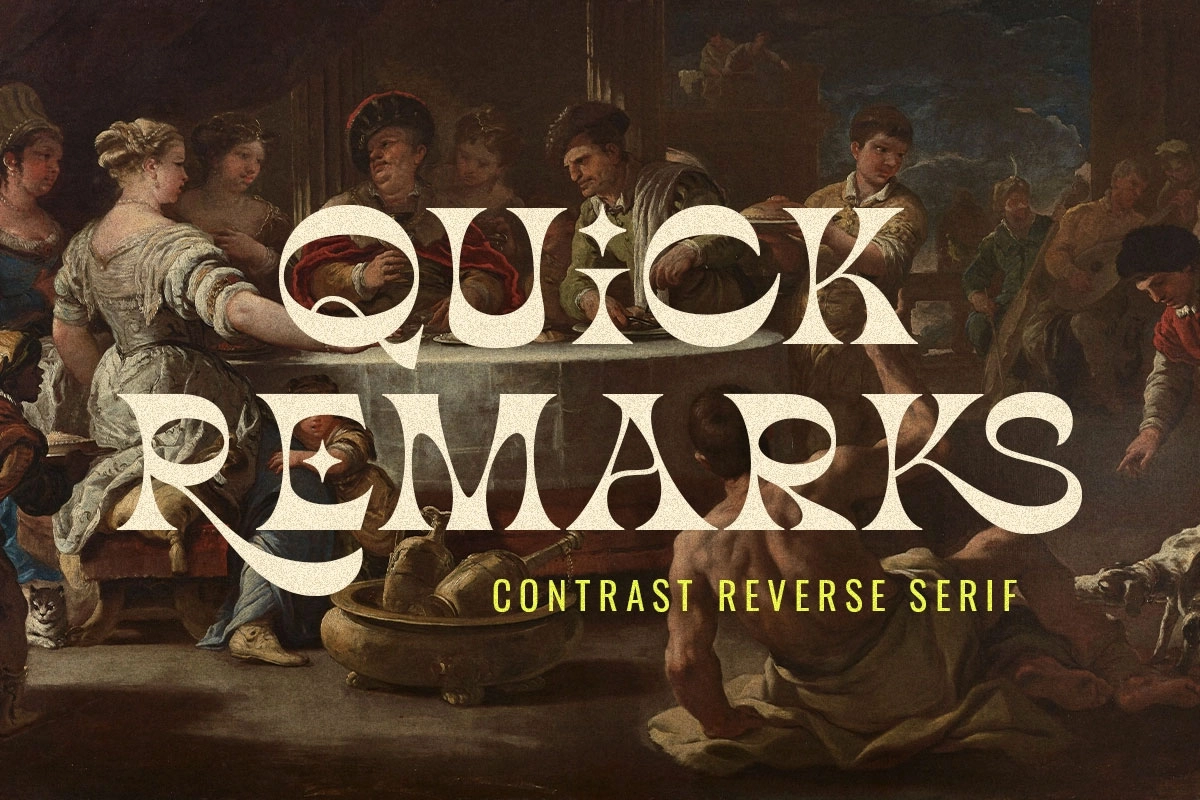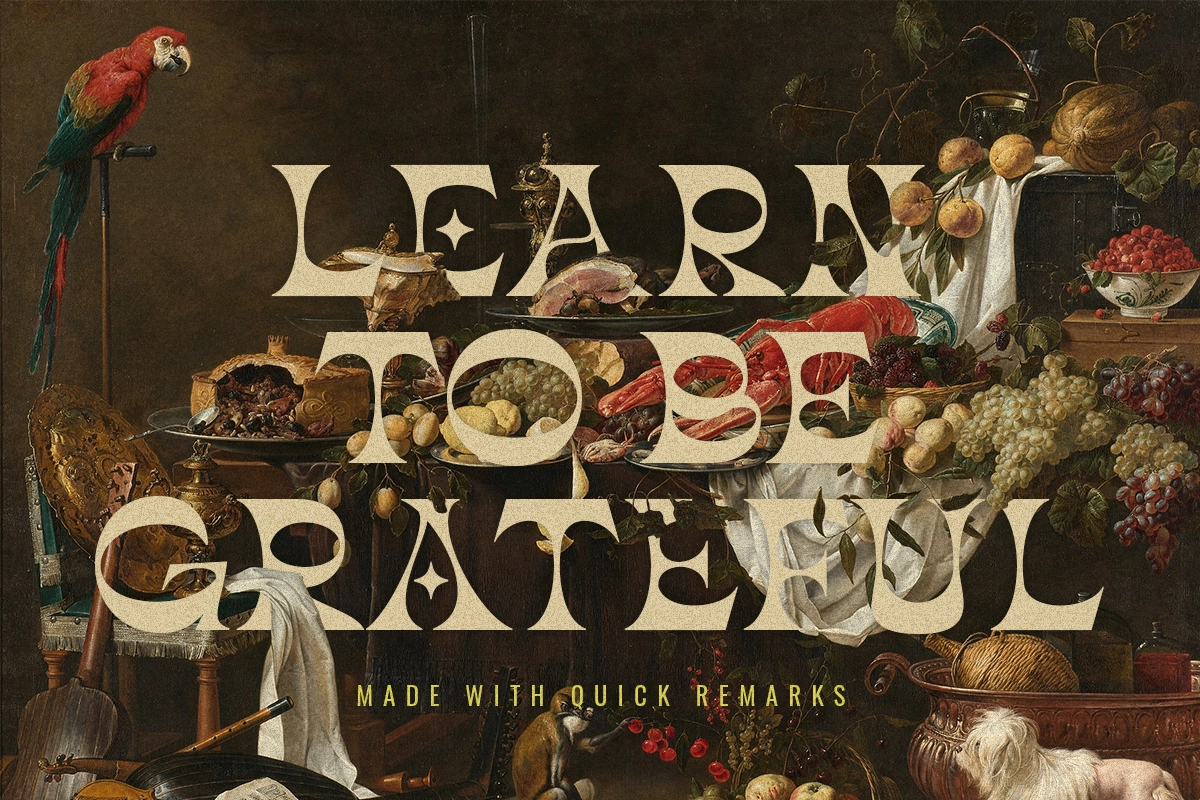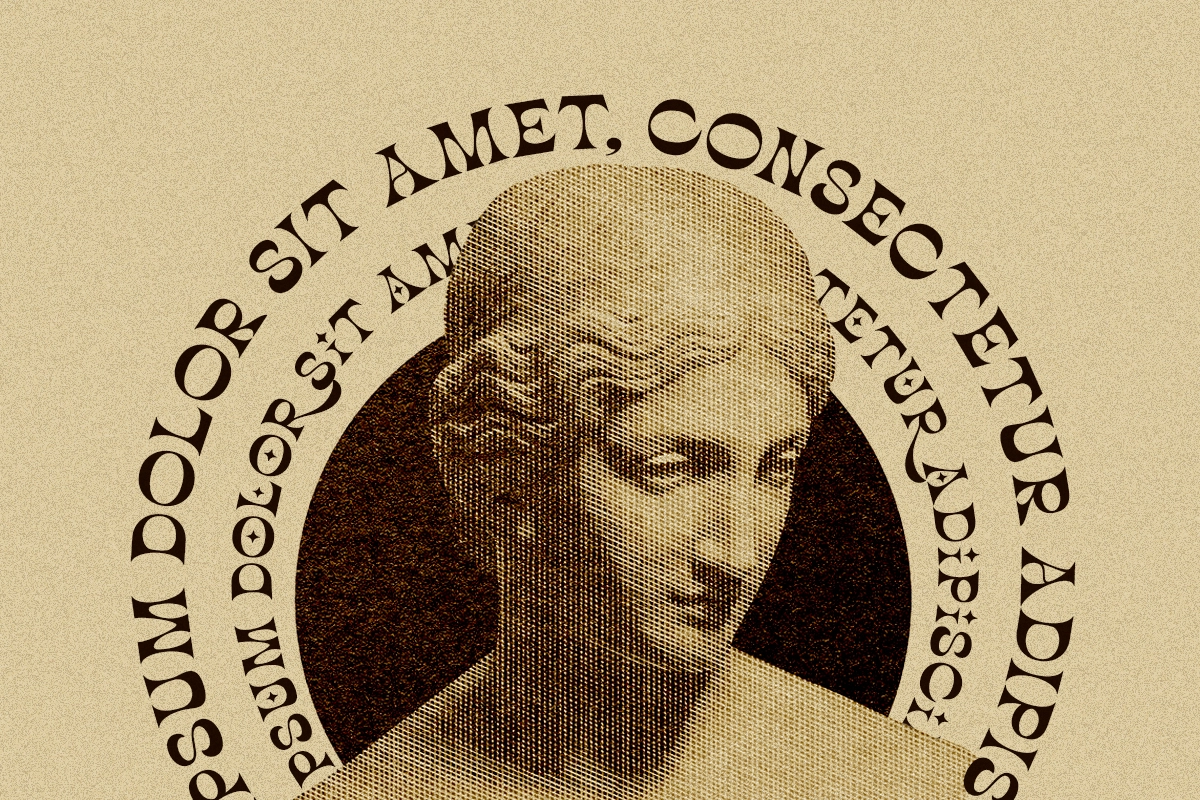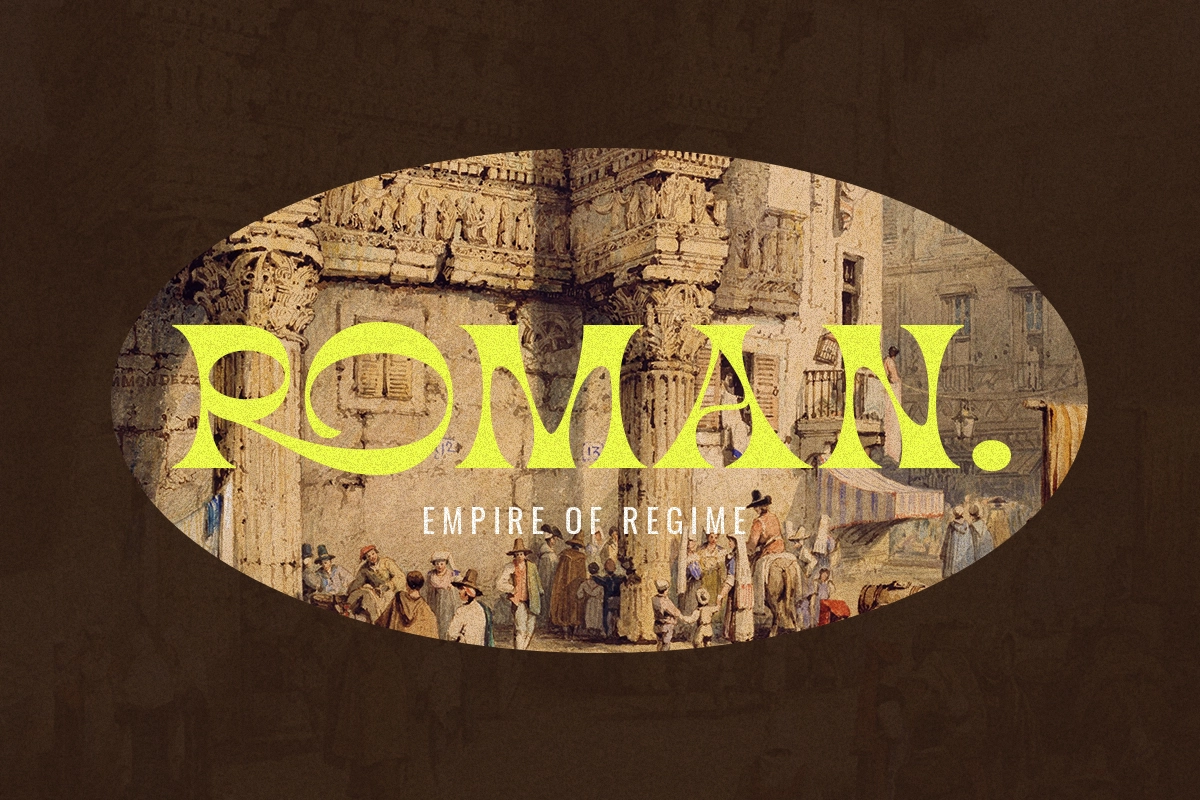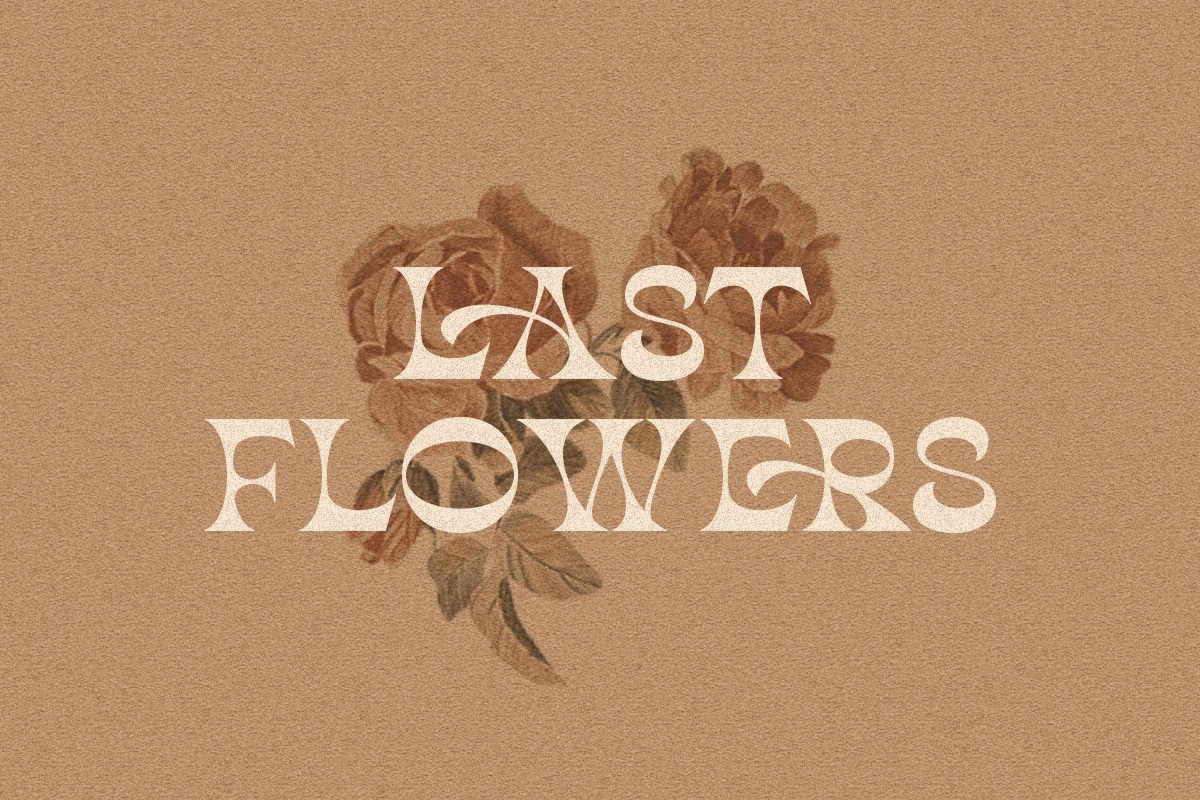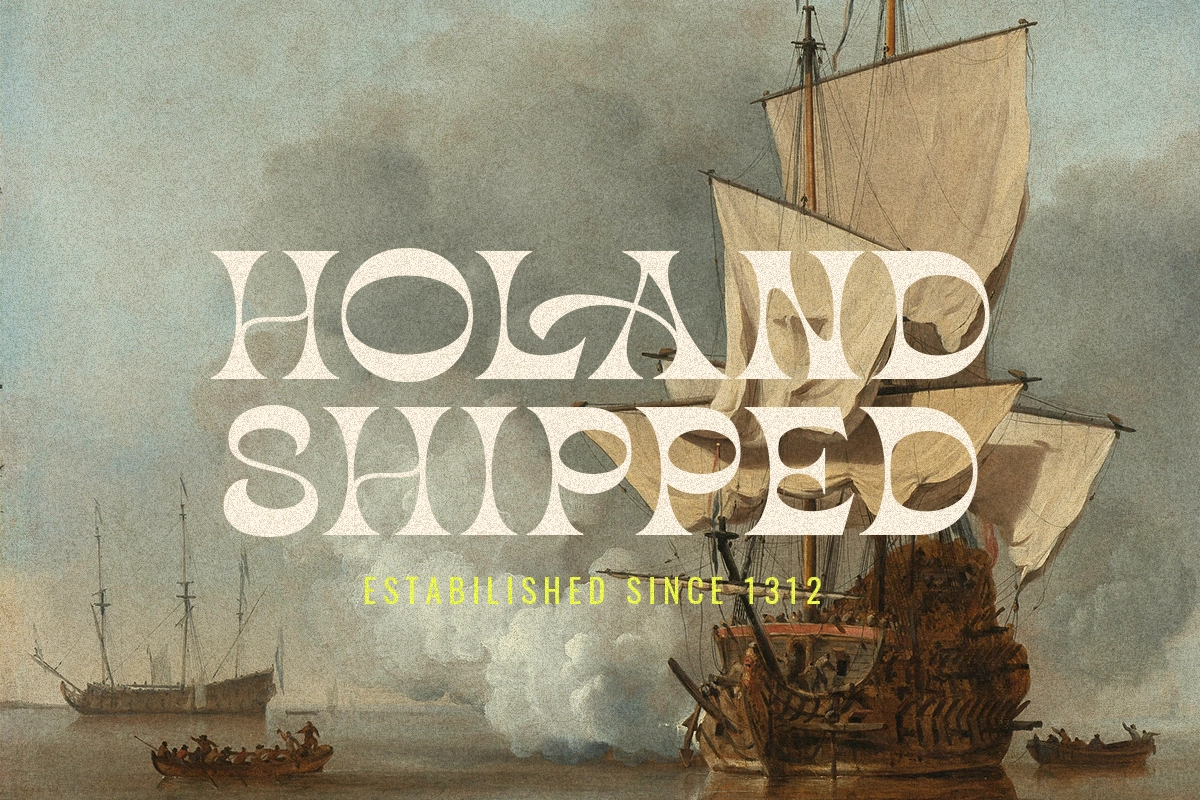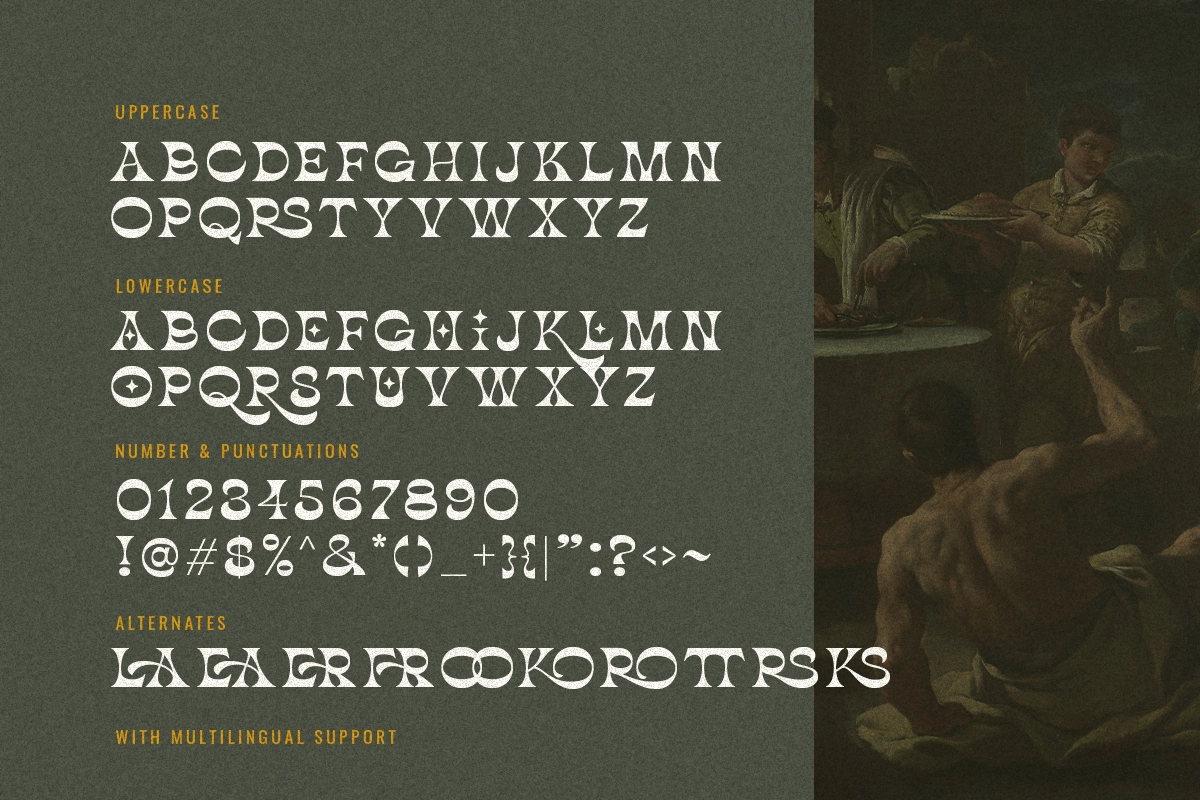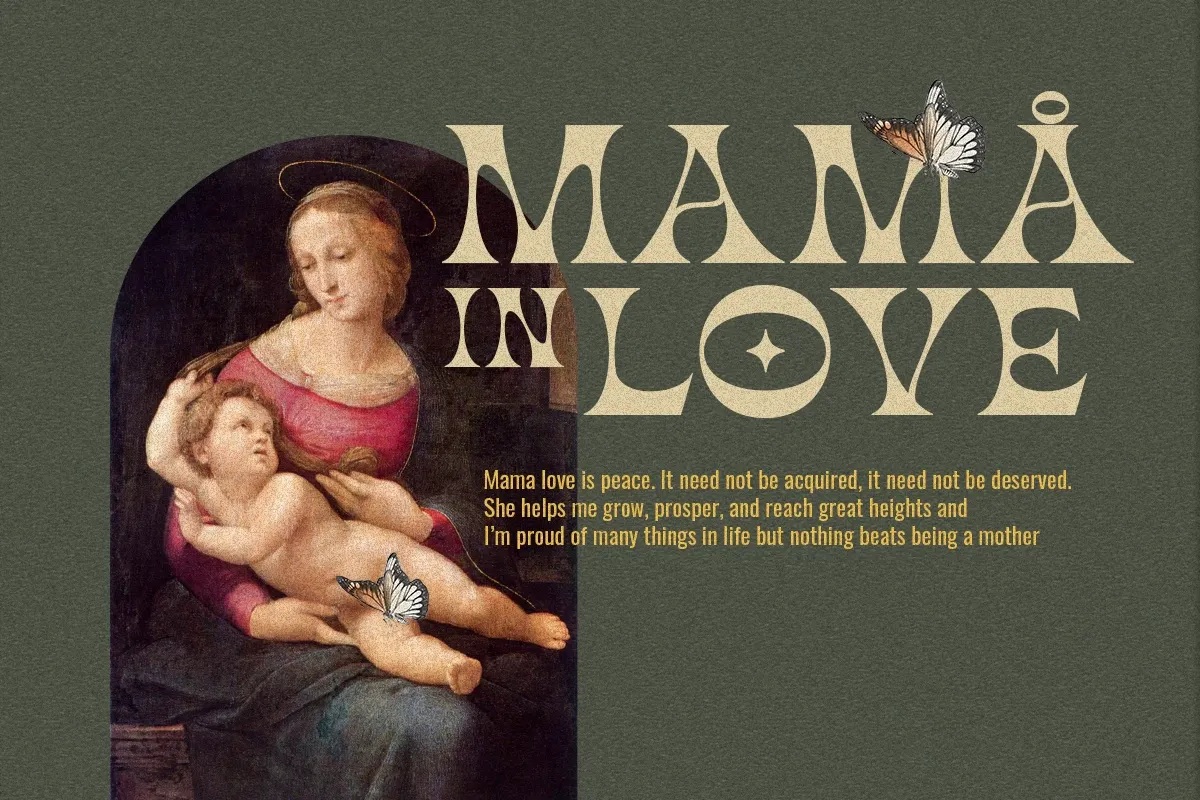
Quick Remarks - Reverse Serif
Quick Remarks
Quick Remarks is a reverse and modern serif that comes with stylish and noticeable contrast. With unique uppercase and lowercase, this fonts will make your presentation, poster, or logo even more stunning and stand out! You can mix and match the uppercase and lowercase for unlimited form. This font also include many beautiful ligatures. This fonts support Multi Language.